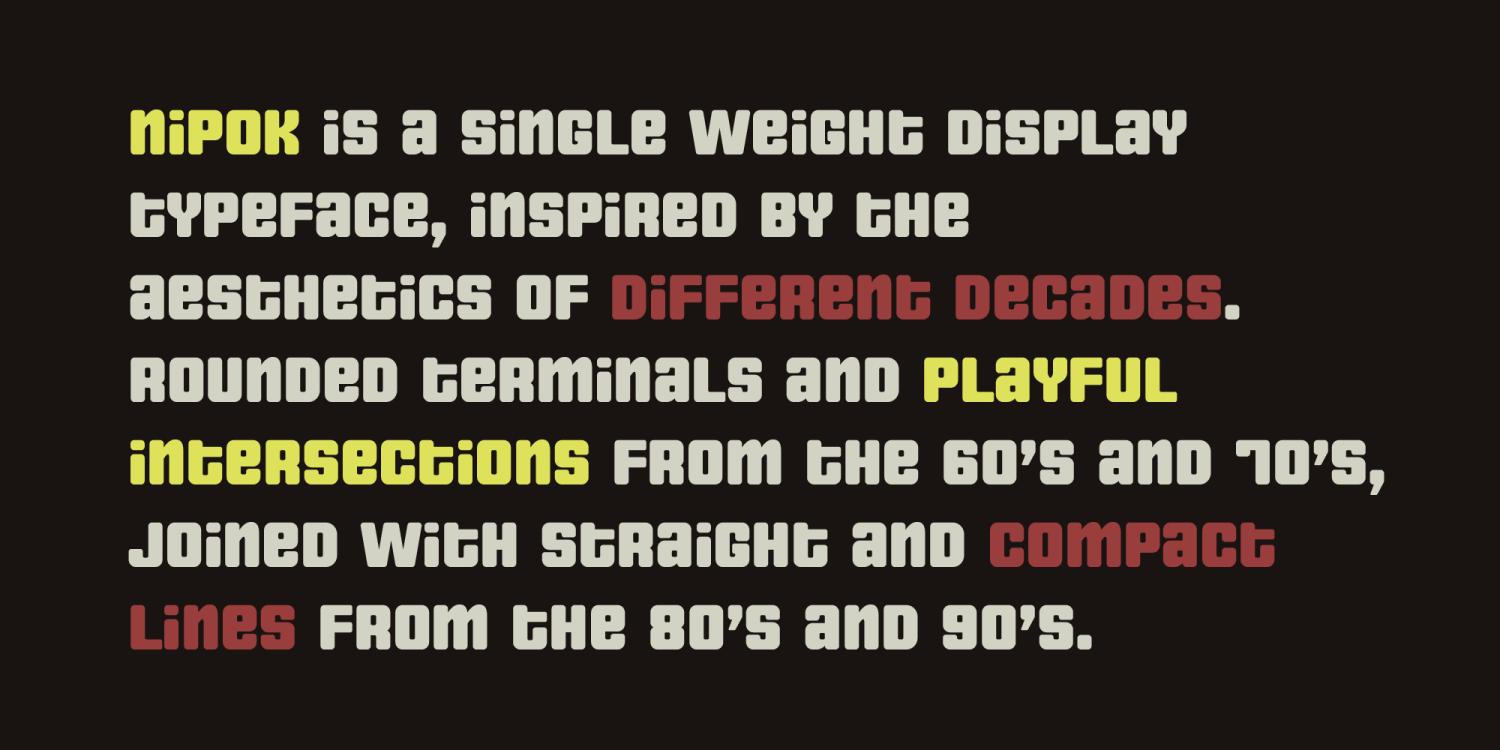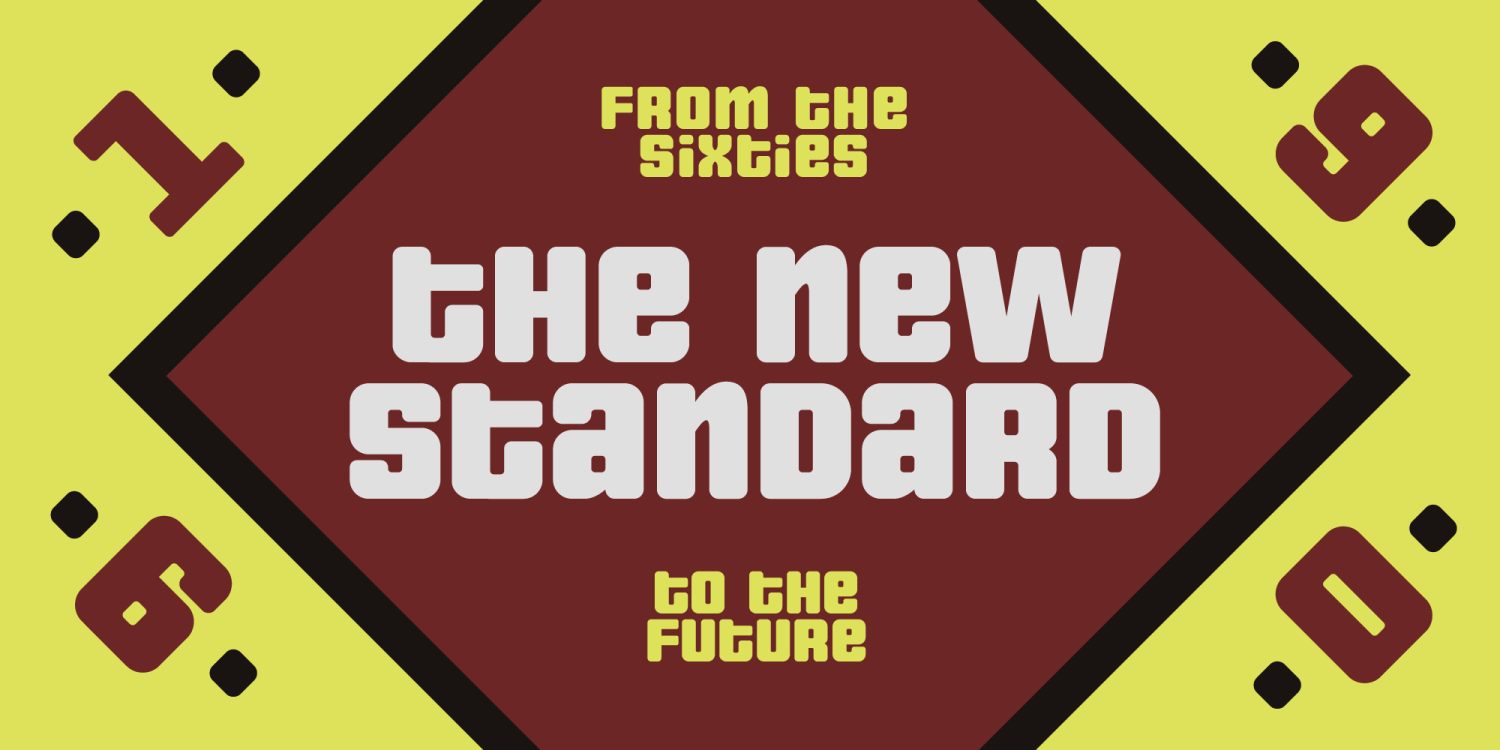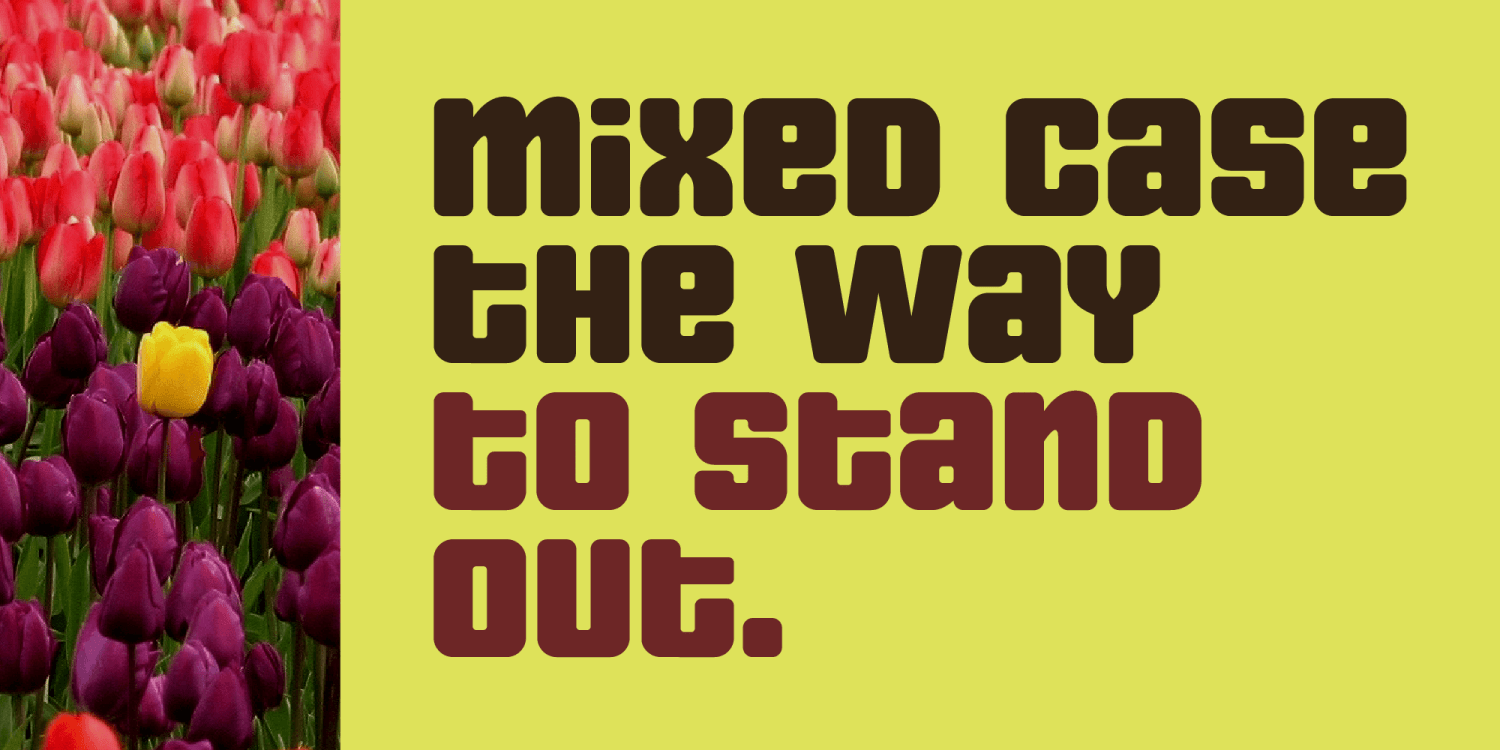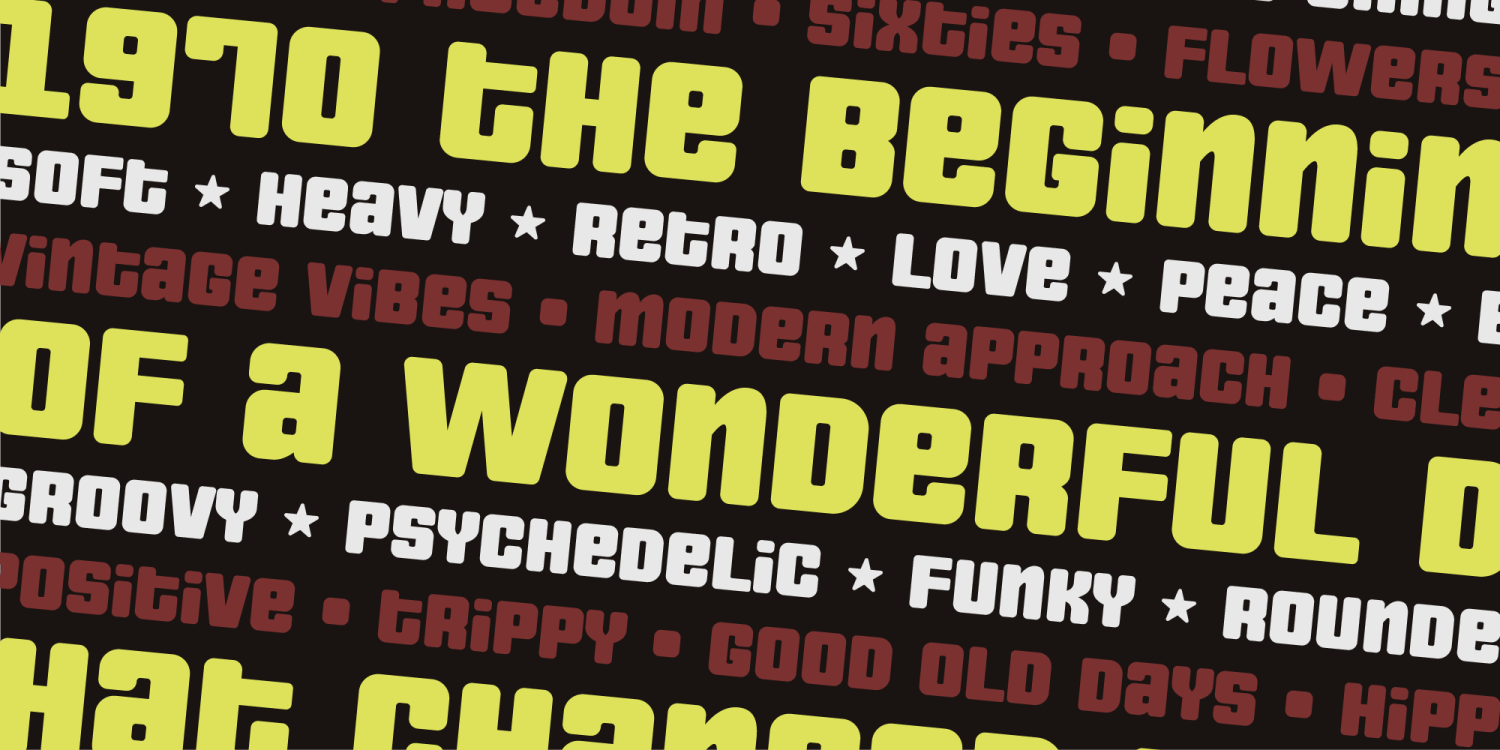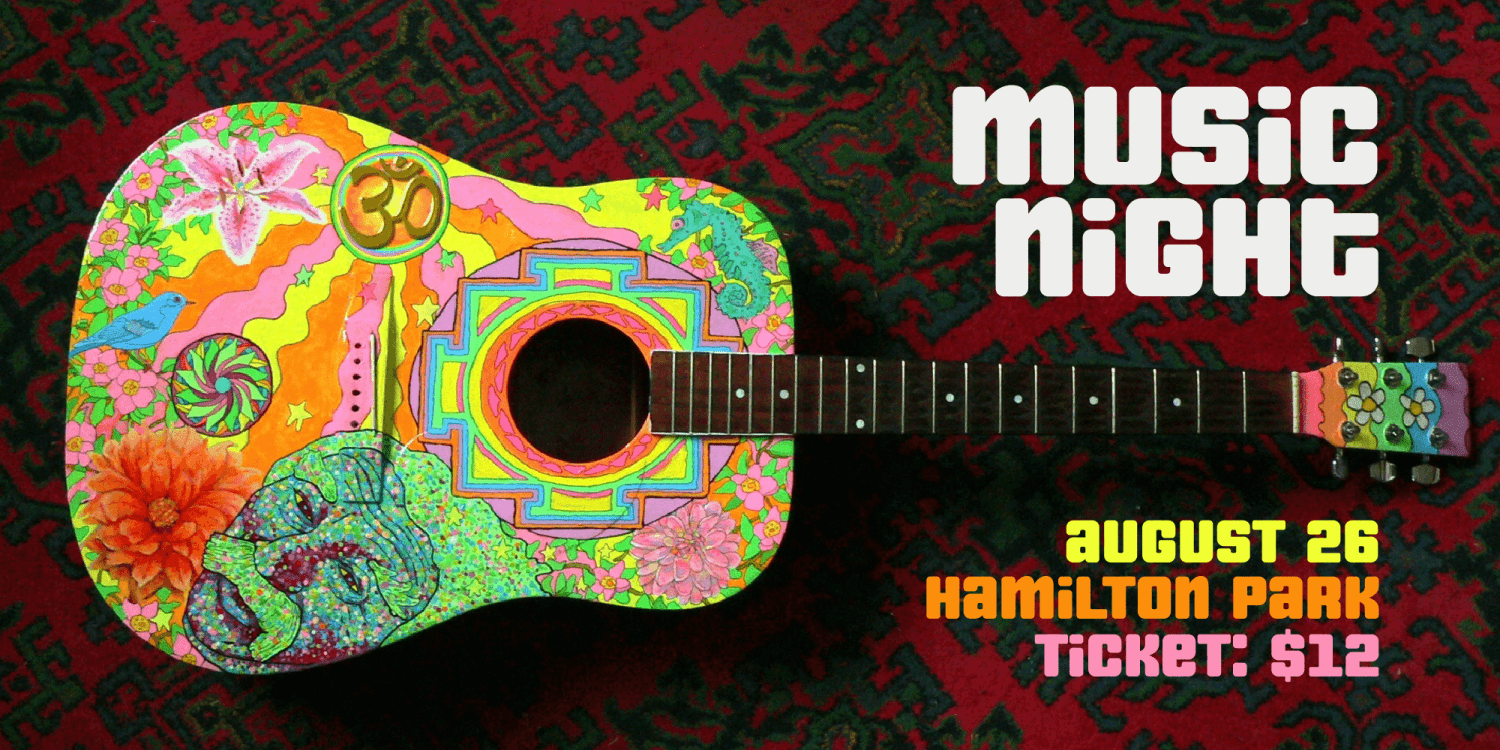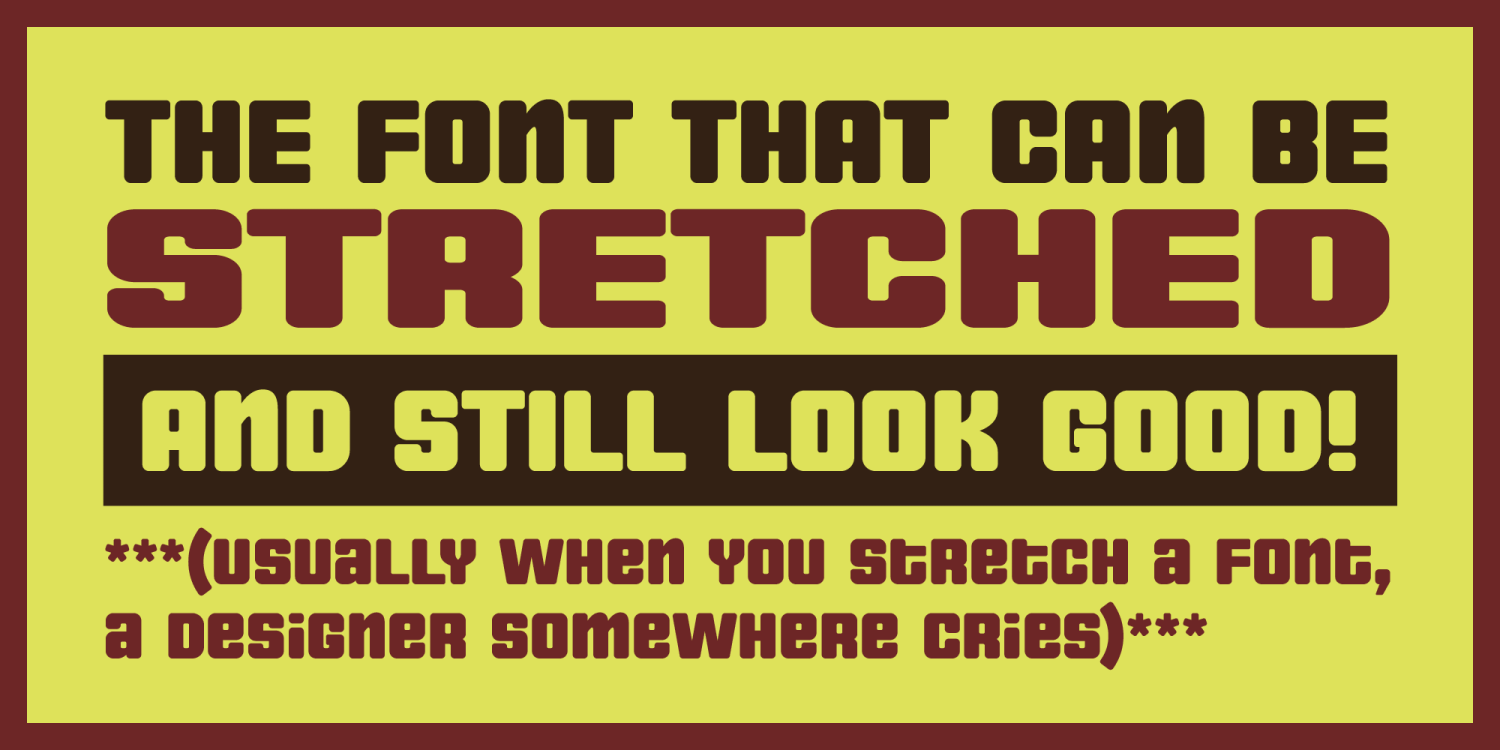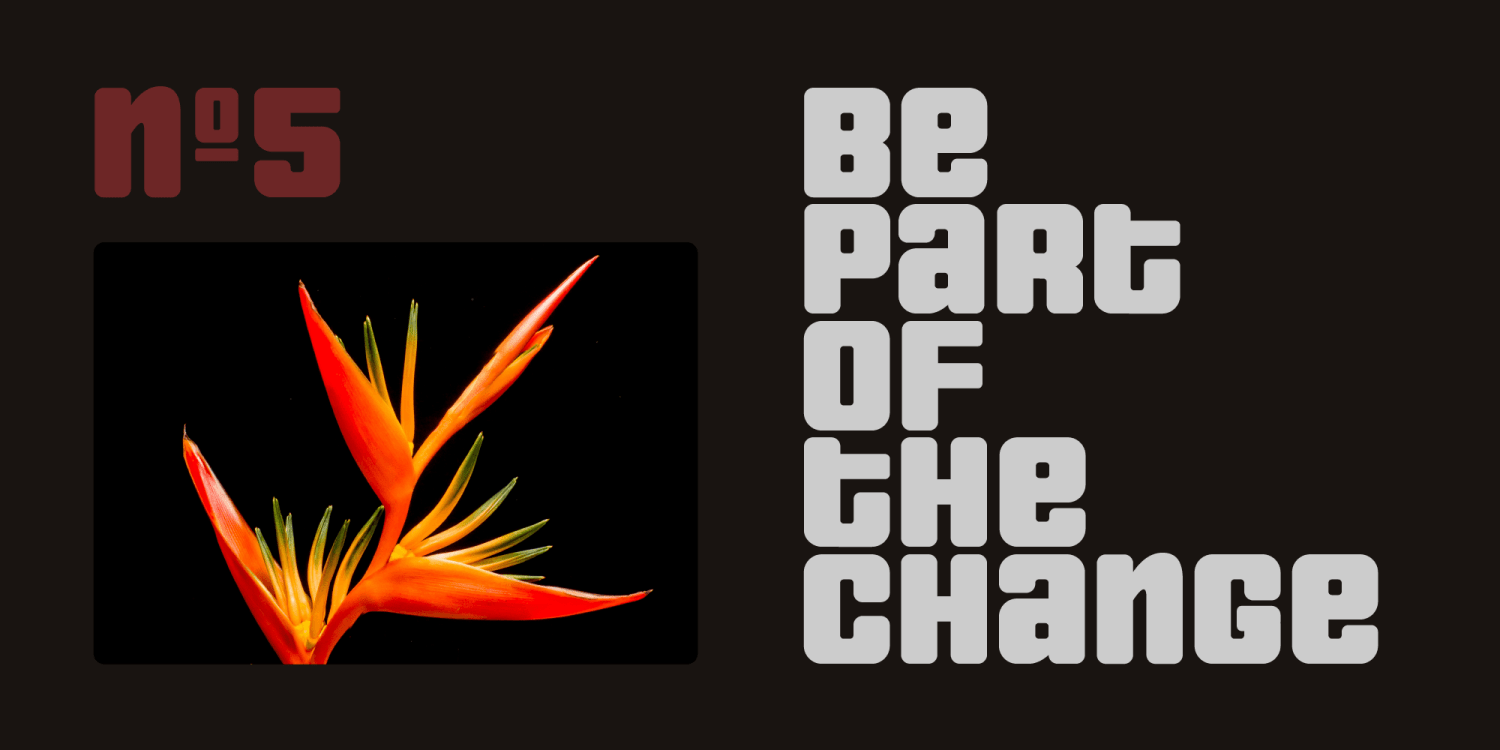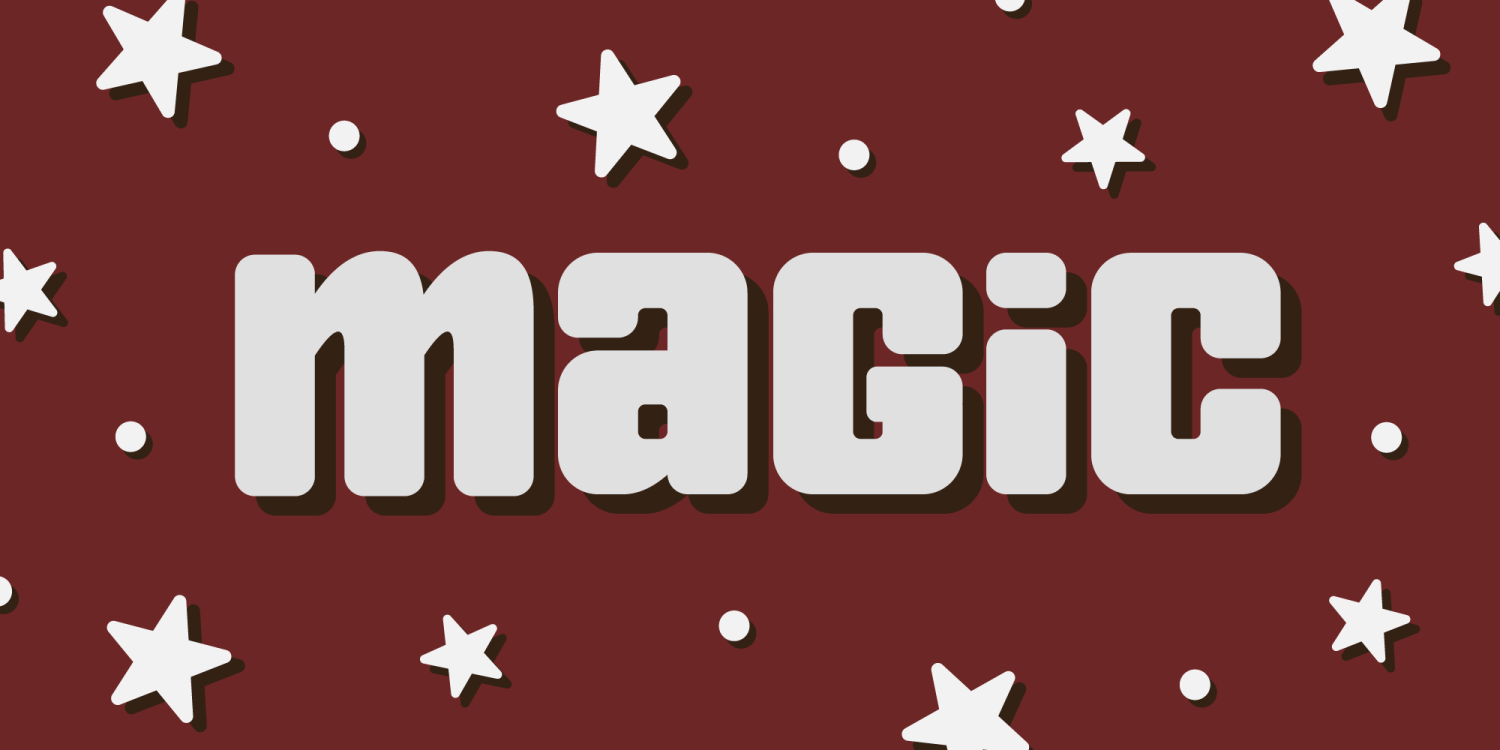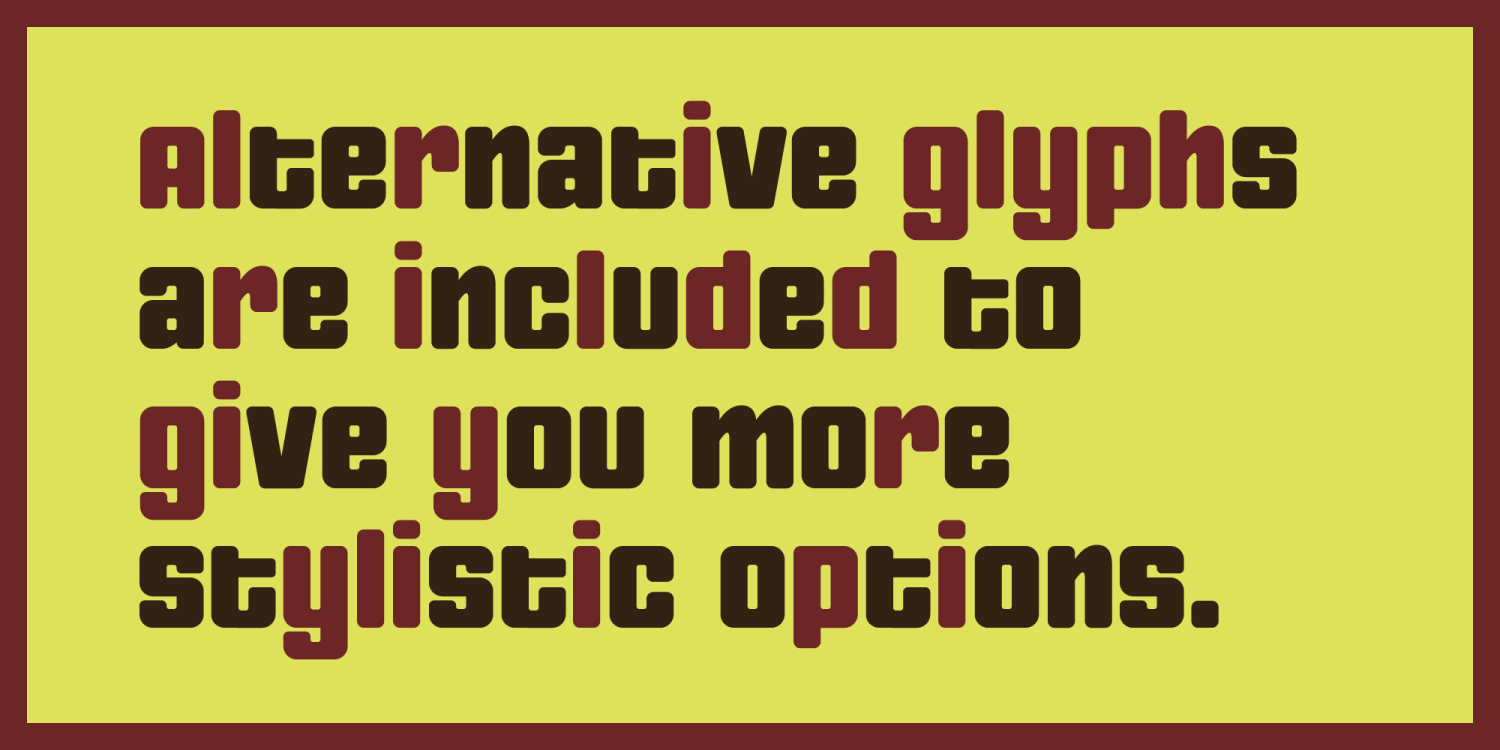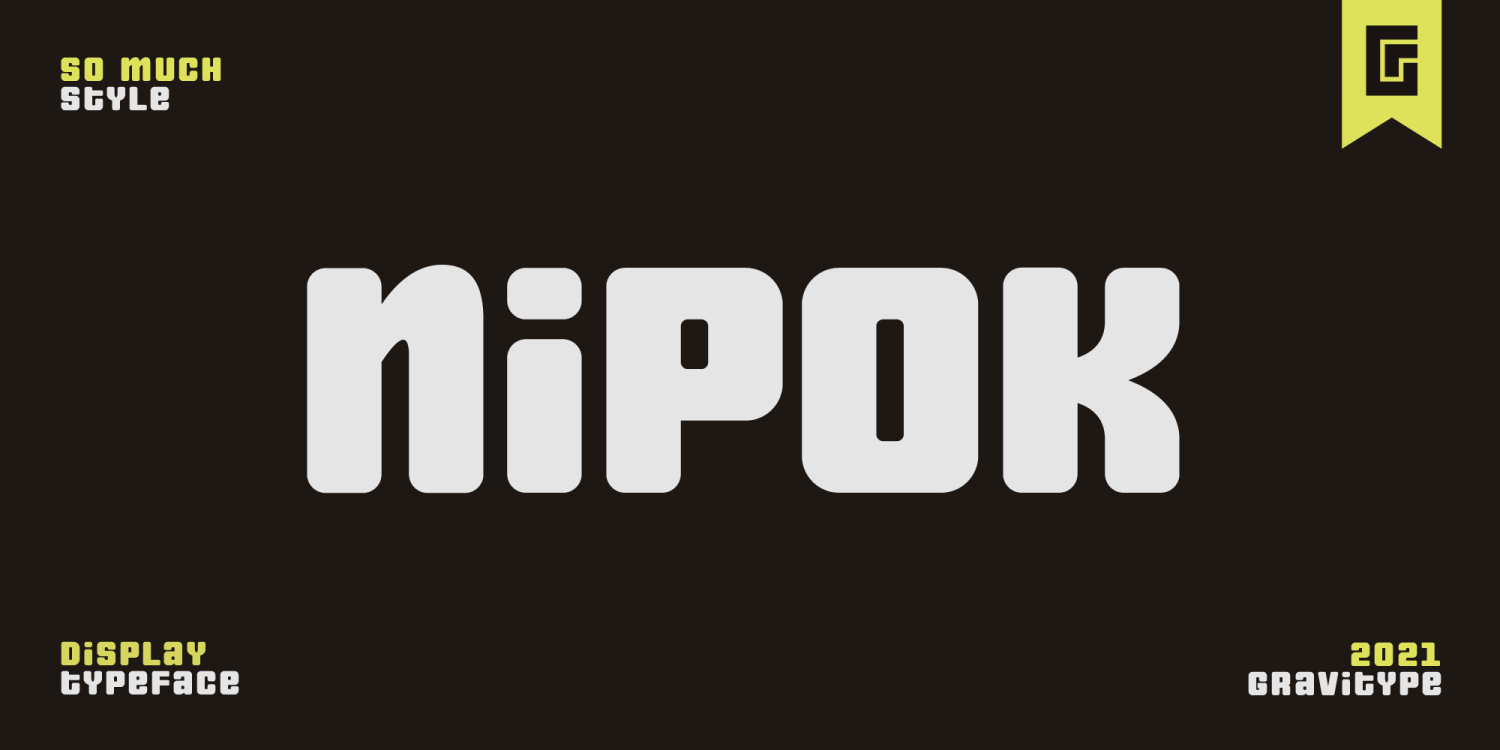
Nipok
About Nipok
Nipok is a single weight display typeface, inspired by the aesthetics of different decades. Rounded terminals and playful intersections from the 60\’s and 70\’s, joined with straight and compact lines from the 80\’s and 90\’s. The particular style is given…